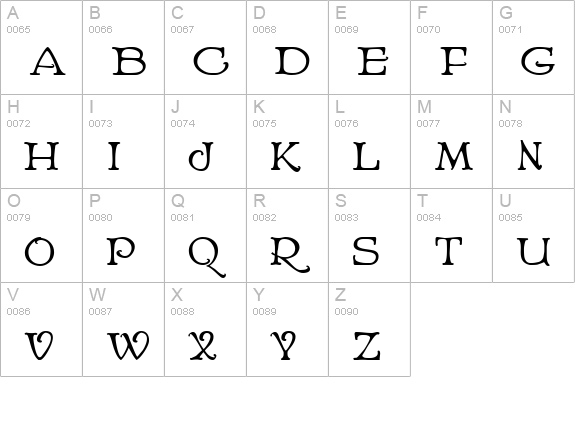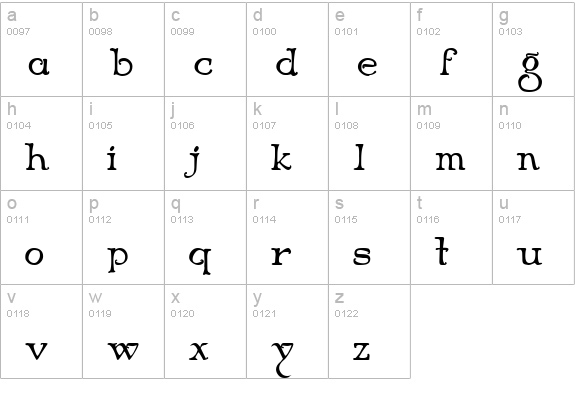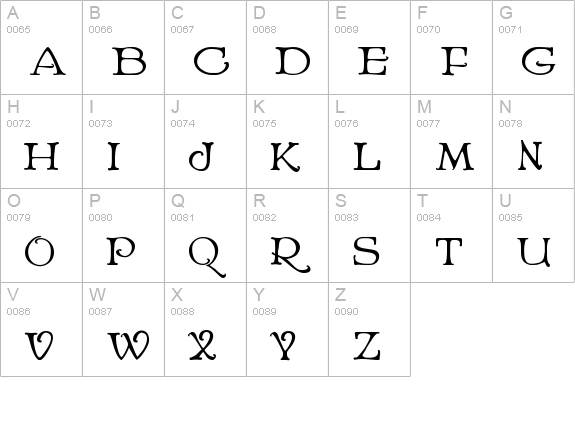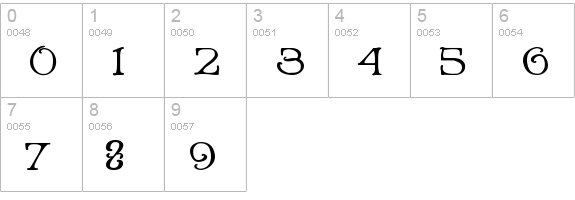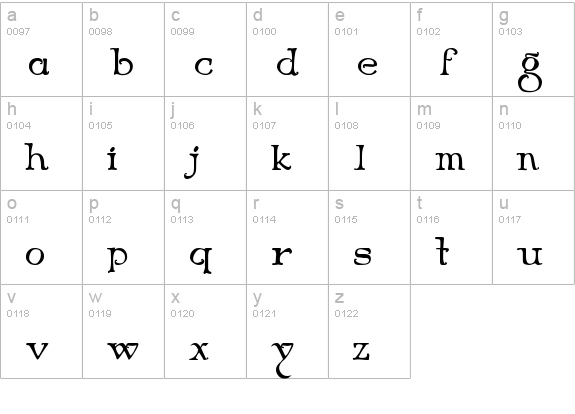
Niederwald Font Details
Niederwald font is a stunning and elegant typeface that combines classic sophistication with a modern twist. Its sleek lines and graceful curves make it perfect for a wide range of design projects, from branding to editorial to web design. Niederwald font exudes a sense of timeless beauty and refinement that will elevate any design it is used in. The best part is that Niederwald font is completely free to download at FontsMarket.com. That's right, you can add this exquisite font to your collection without spending a penny. Whether you're a seasoned designer looking to refresh your toolkit or a beginner exploring the world of typography, Niederwald font is a fantastic choice that won't break the bank. With its versatility, elegance, and accessibility, Niederwald font is sure to become a staple in your design arsenal. Download it today and start creating beautiful, professional-looking designs with ease.